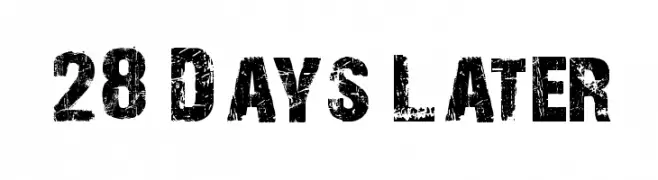
A bold, distressed font with a grunge, post-apocalyptic style.
A bold, tall, and narrow font with a modern and assertive style.
A bold, high-contrast serif font with elegant curves and a classic style.
A retro, pixelated monospaced font with a digital, vintage aesthetic.
A clean, rounded sans-serif font with excellent readability and a friendly appearance.
An ornate and decorative font with intricate flourishes and gothic influences.
What are the top fonts right now?
Currently, the most downloaded and loved typefaces include 28 Days Later, Gobold Extra2, Abril Fatface, Coca Cola ii and Bodoni-Bold. They dominate modern branding and digital design thanks to their readability and strong visual personality. These fonts adapt beautifully to websites, posters, and social media graphics.
Which fonts are most popular for logos?
Designers often choose Sans Serif fonts like Poppins or Gotham for clean, versatile branding. For a more personal tone, script fonts and handwritten styles remain timeless favorites. A balanced combination of bold headlines and neutral body fonts ensures recognition and harmony in brand identity.